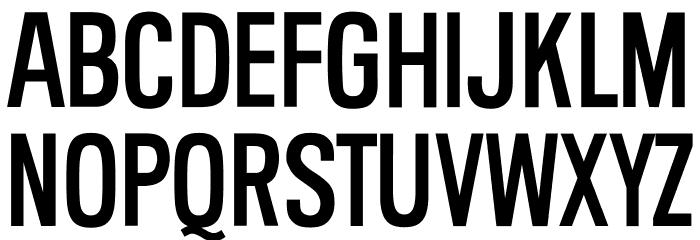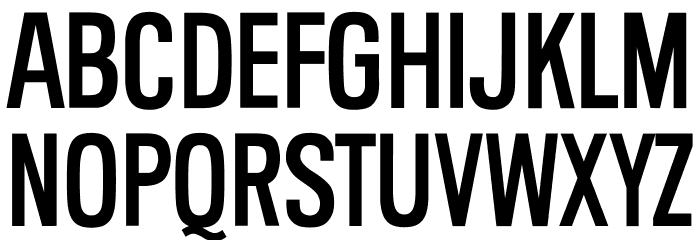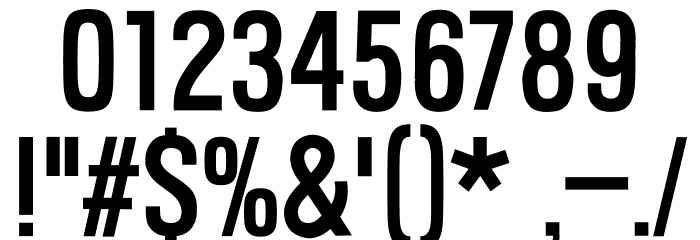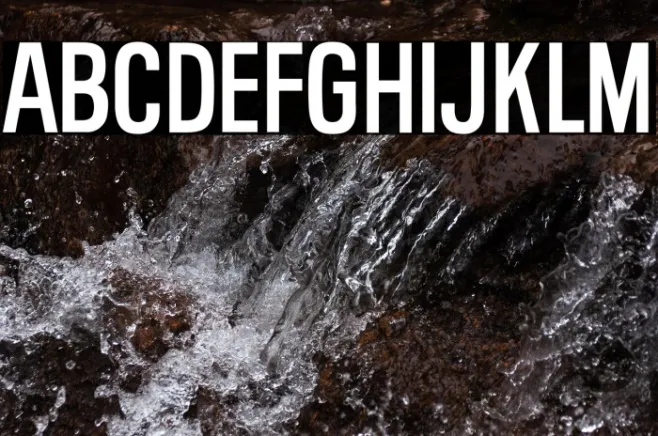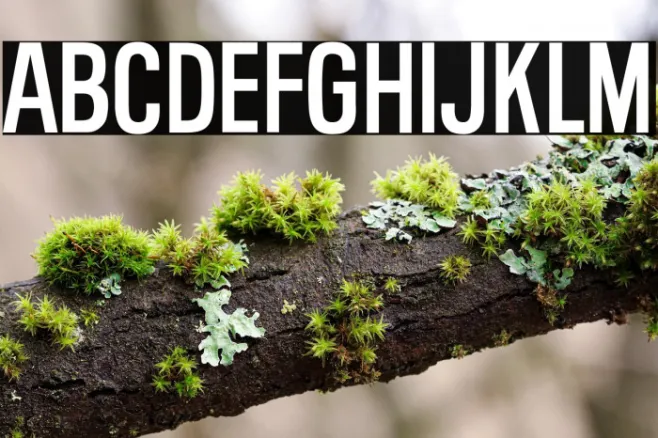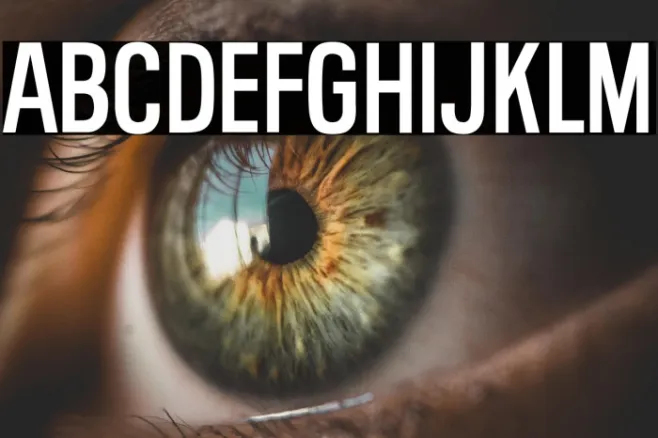
Caver Pitalsal Font
This font is a bold, sans-serif typeface characterized by its strong, clean lines and modern aesthetic. The uppercase and lowercase letters are well-proportioned, offering a sense of balance and clarity. The numerals are distinct and easy to read, making them suitable for various applications. Special characters are included, maintaining the font's cohesive style. The overall design is versatile, making it ideal for both digital and print media. Its boldness ensures visibility and impact, while the sans-serif style provides a contemporary feel.
- Font: Caver Pitalsal
- Proposed Projects: Ideal for branding, advertising, headlines, and digital media where a strong, modern impression is needed.
- Category: Sans-Serif
- Use Case: Headlines, Logos, Branding